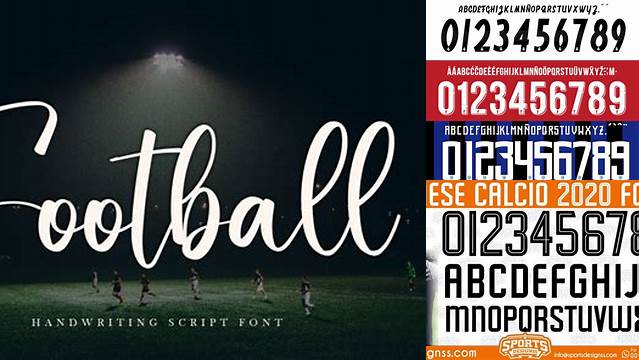
Hey guys! Are you looking for that perfect font to give your football-themed designs that extra edge? You've come to the right place! Finding the right font number football for your project can be a game-changer, whether you're designing jerseys, posters, or even just fun graphics for your social media. And the best part? We're talking about a free download 100, so you don't have to break the bank to get your hands on some top-notch typography. So, buckle up, because we're diving deep into the world of football fonts and how you can snag them for free. This guide will cover everything you need to know about finding, downloading, and using the best font number football options out there. Weβll also explore some creative ways to use these fonts in your designs to truly make them stand out. Letβs get started and make your designs score big!
Football Jersey Font Styles
Let's talk about football jersey font styles. The font you choose for a jersey can really make or break the overall look. Think about it β a sleek, modern font can give a team a cutting-edge vibe, while a classic, bold font can evoke tradition and strength. When you're picking a font, consider the team's identity and the message you want to convey. A great jersey font needs to be legible, even from a distance, and should complement the overall design of the jersey. So, what are some popular football jersey font styles? You've got your classic block fonts, which are always a solid choice for their readability and impact. Then there are more stylized fonts that can add a unique flair, but you need to make sure they don't sacrifice legibility. Experiment with different options and see what works best with your team's colors and logo. Don't be afraid to mix and match, but always prioritize clarity and a cohesive look. Ultimately, the right font will not only look good but also enhance the team's brand and identity. And remember, a good free download 100 is always a bonus!
Best Fonts for Football Designs
Alright, let's get into the best fonts for football designs. When you're working on anything football-related, the font you choose is crucial. It sets the tone, conveys the energy of the sport, and helps your design stand out. So, what makes a font perfect for football? Think bold, strong, and dynamic. You want a font that commands attention and reflects the intensity of the game. Some of the best fonts for football designs include classic athletic fonts, which have that timeless, sporty feel. But don't limit yourself! Modern, geometric fonts can also work wonders, especially if you're going for a more contemporary look. Consider the context of your design β are you creating a poster, a website header, or social media graphics? Each application might call for a slightly different style. And, of course, you'll want to make sure the font is legible and works well with your overall color scheme and imagery. Keep an eye out for that free download 100 option to save some cash while still getting a fantastic font.
Free Fonts for Football Numbers
Finding free fonts for football numbers can be a game-changer, especially if you're on a budget. Numbers need to be clear, bold, and easily recognizable, whether they're on a jersey, a poster, or a scoreboard graphic. The best free fonts for football numbers often have a classic, athletic feel, but there's also room to get creative. Think about fonts that are slightly condensed to fit nicely on a jersey or those with a bit of a vintage look for a retro vibe. When you're hunting for fonts, make sure they're available for commercial use if you plan on using them for anything beyond personal projects. There are tons of websites offering free download 100 font options, but always double-check the licensing terms. Experiment with different styles and see what looks best with your overall design. A great number font can really add that finishing touch to your football-themed project, making it look professional and polished.
Download Football Team Fonts Free
Looking to download football team fonts free? You're in luck! There are plenty of resources out there that offer high-quality fonts perfect for representing your favorite team. Whether you're creating fan merchandise, social media graphics, or even just personal projects, having the right font can make all the difference. When you're searching to download football team fonts free, think about what makes a font suitable for a team. It should be bold, impactful, and reflective of the team's identity. Classic athletic fonts are always a good choice, but you might also find something unique that captures the team's personality. Make sure to check the licensing terms before you free download 100, especially if you plan on using the font for commercial purposes. Many websites offer free fonts for personal use, but commercial use may require a license. So, do your homework and get ready to represent your team in style with the perfect font!
Custom Football Font Generator
If you're feeling extra creative, a custom football font generator can be an awesome tool. These generators allow you to create a font that's totally unique to your project, giving you complete control over the look and feel. With a custom football font generator, you can adjust things like the thickness, slant, and style of the letters and numbers, ensuring your font perfectly matches your design. This is especially useful if you have a specific vision in mind or if you want to create a font that's truly one-of-a-kind. While some generators might come with a price tag, there are also free options available that offer a surprising amount of flexibility. Just be sure to check the licensing terms if you plan on using your custom football font generator creation for commercial purposes. And of course, remember that a free download 100 is the ultimate win!
Football Font for Cricut
For all you crafters out there, finding the right football font for Cricut is essential for creating personalized jerseys, banners, and more. Cricut machines are fantastic for cutting out intricate designs, but the font you choose can make or break your project. When you're looking for a football font for Cricut, you'll want something that's clean, bold, and easy to cut. Avoid fonts with too many thin lines or intricate details, as these can be difficult for the Cricut to handle. Classic athletic fonts often work well, as do simpler sans-serif fonts. Before you start cutting, always do a test run with a small piece of material to ensure your font cuts cleanly. And remember, finding a free download 100 font that works with your Cricut is the best of both worlds! It allows you to create amazing projects without spending a fortune on fonts.
Create Your Own Football Font
Feeling ambitious? Why not create your own football font? Designing your own font can be a challenging but incredibly rewarding experience. It gives you complete control over every detail, ensuring your font perfectly matches your vision. To create your own football font, you'll need some specialized software, such as FontLab Studio or Glyphs. These programs allow you to draw each letter, number, and symbol, adjust spacing, and fine-tune every aspect of your font. It's a time-consuming process, but the result can be a truly unique and professional-looking font. If you're new to font design, there are tons of tutorials and resources available online to help you get started. And while you're at it, why not aim for a free download 100 of your own creation? Share it with the world and let others enjoy your awesome font!
Football Font Generator Online
If you need a quick and easy way to create football-themed text, a football font generator online is your best friend. These tools allow you to type in your text, choose from a variety of football-inspired fonts, and instantly generate an image of your text in that font. It's perfect for creating social media graphics, website headers, or even just playing around with different styles. There are many football font generator online options available, some of which are completely free to use. While you might not have as much customization as you would with a font design program, these generators are incredibly convenient for quick projects. And who knows, you might even stumble upon a free download 100 font that you love! Just remember to check the licensing terms if you plan on using the generated text for commercial purposes.
Best Football Font for Numbers and Letters
Choosing the best football font for numbers and letters is crucial for readability and impact. A good football font needs to be clear, bold, and easy to read, whether it's on a jersey, a scoreboard, or a poster. For numbers, you'll want a font that's easily distinguishable, even from a distance. Think about classic athletic fonts with strong, blocky shapes. For letters, legibility is also key, but you have a little more room to play with style. Consider the overall tone of your design β are you going for a classic, modern, or retro vibe? The best football font for numbers and letters will complement your design and help convey the right message. And of course, snagging a free download 100 font that fits the bill is always a win!
Tips for Using Football Fonts
Once you've chosen the perfect football font, it's important to use it effectively. Here are some tips for using football fonts in your designs: 1. Use bold fonts for headlines and titles to grab attention. 2. Pair a bold font with a cleaner font for body text to improve readability. 3. Consider the team's colors and use fonts that complement them. 4. Don't be afraid to experiment with different font sizes and weights to create visual interest. 5. Check the licensing terms before using a font, especially for commercial projects. By following these tips for using football fonts, you can create designs that are both visually appealing and effective. And remember, a free download 100 font is only as good as how you use it!